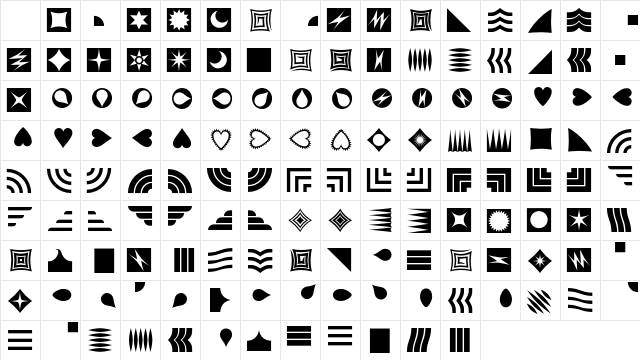
Complete Altemus BordersThree glyph index. Displaying only characters natively supported by Altemus BordersThree font.
Altemus is a composed and adaptable typeface that performs quietly and consistently across a wide range of design contexts.